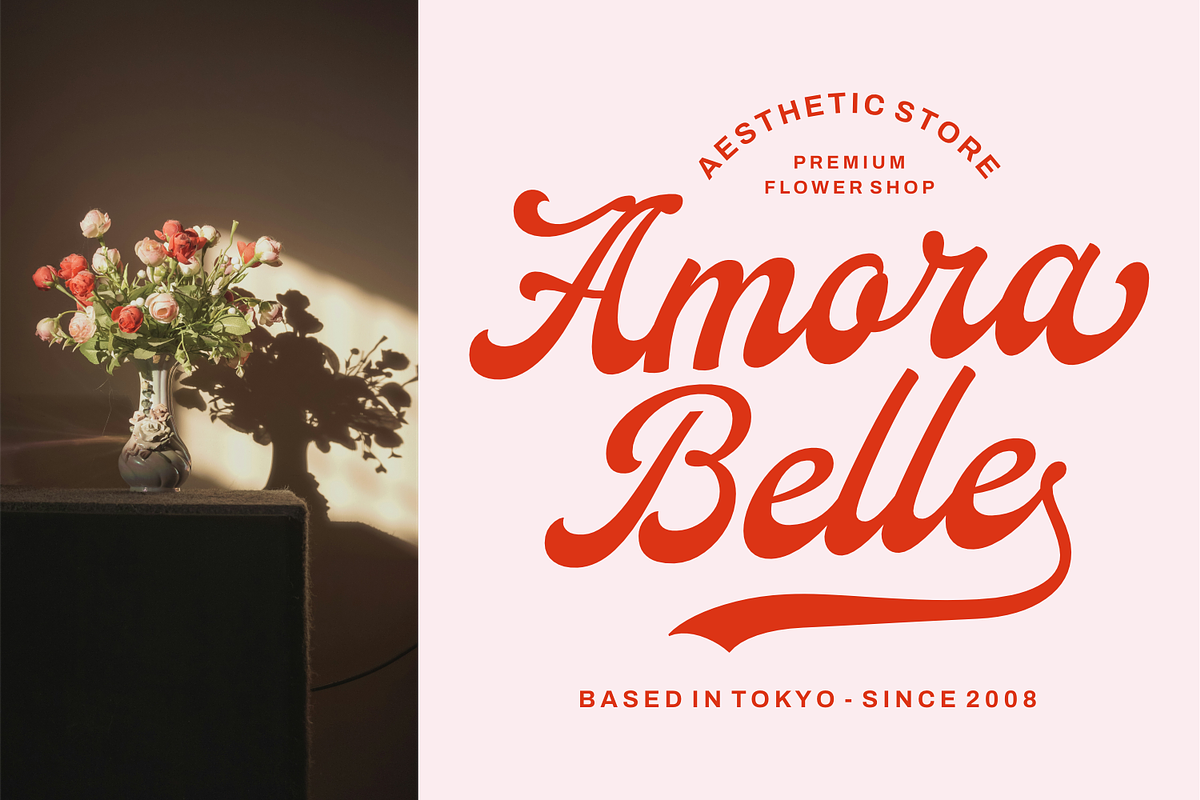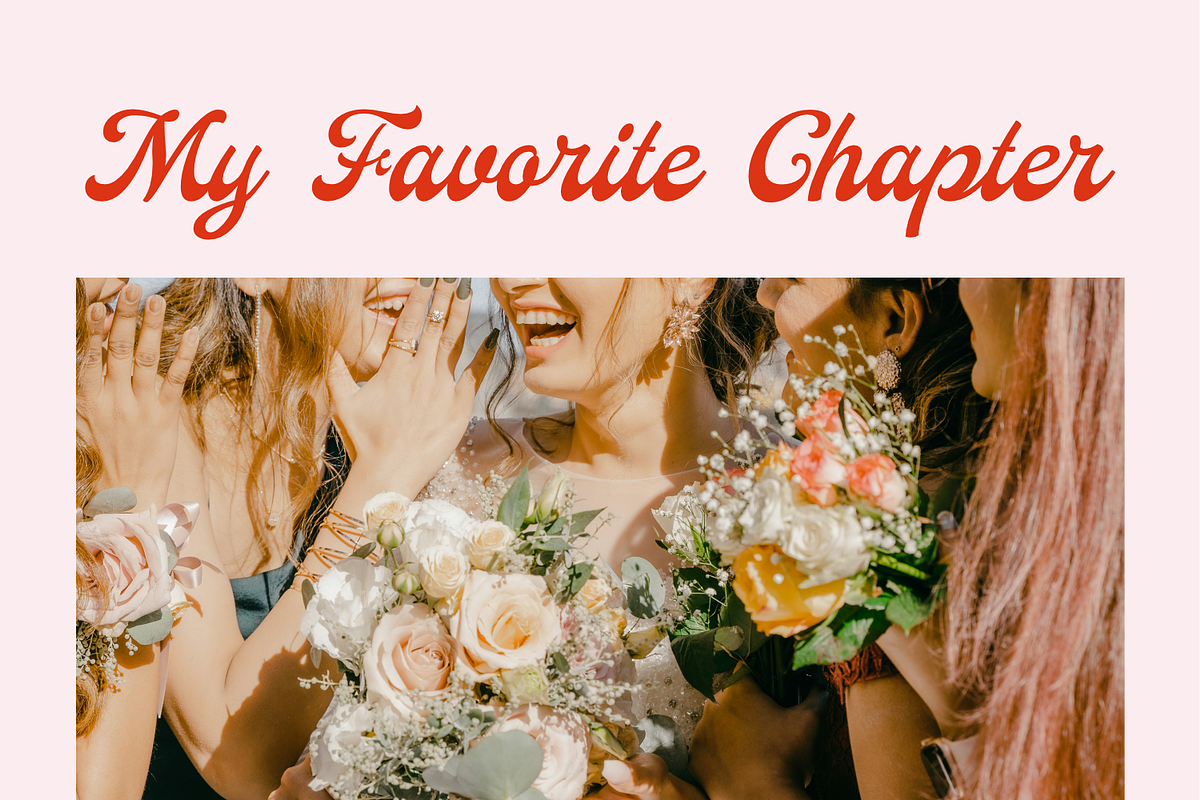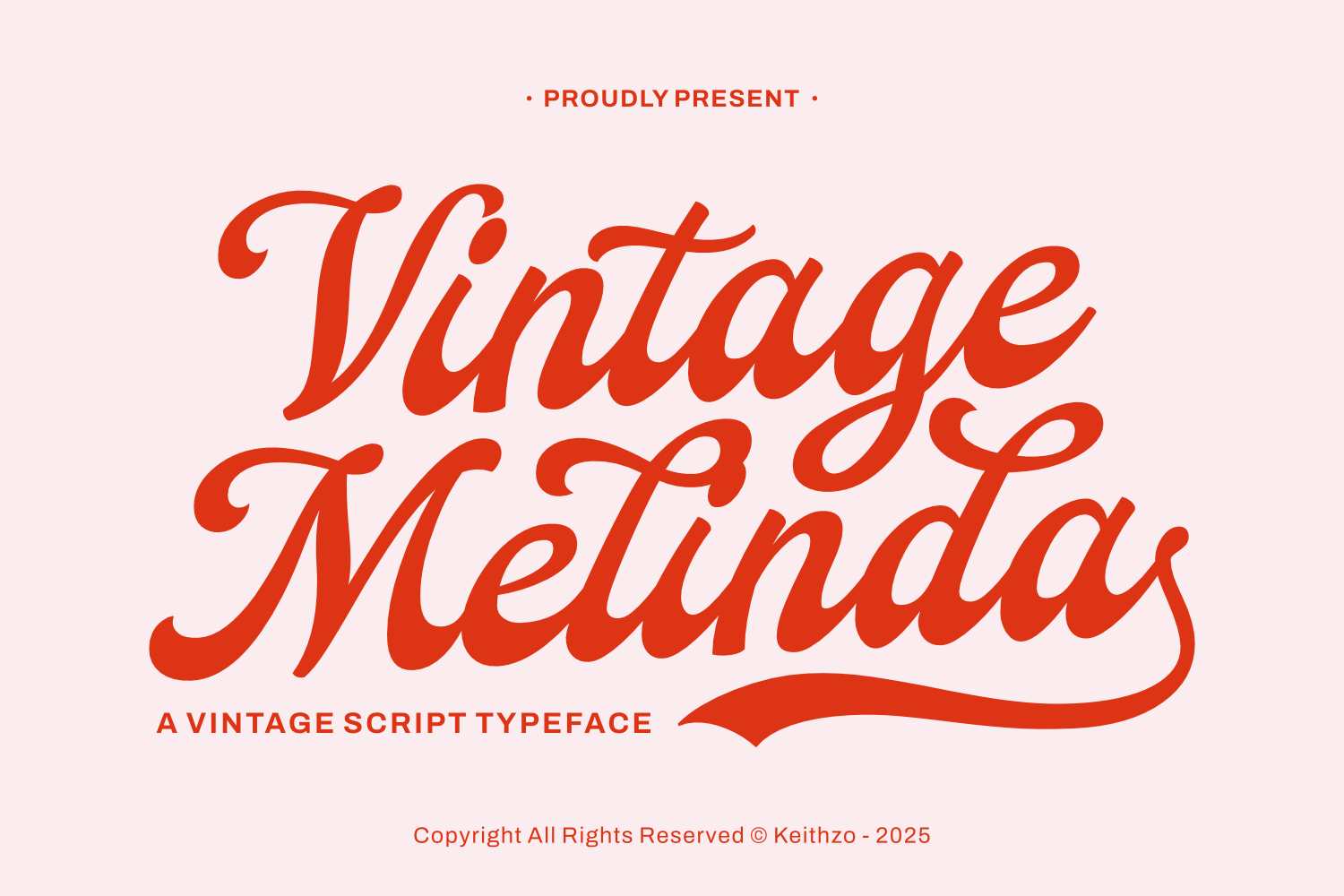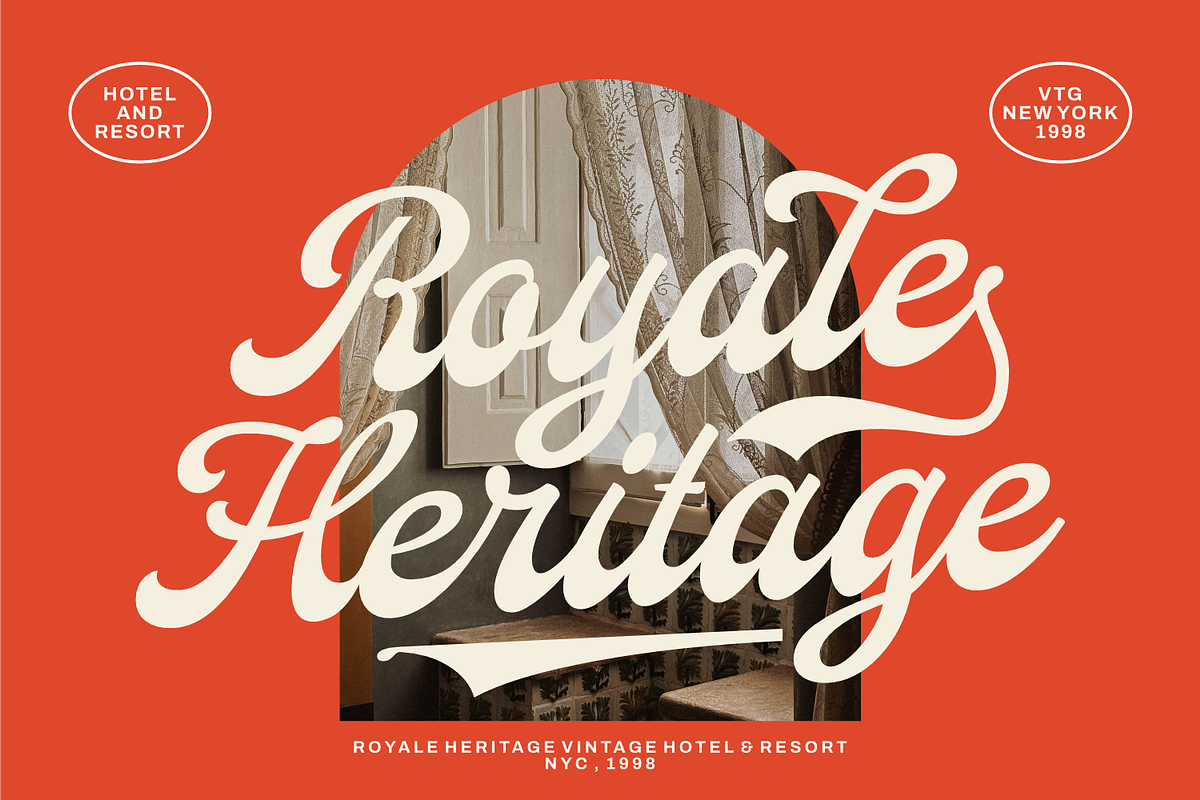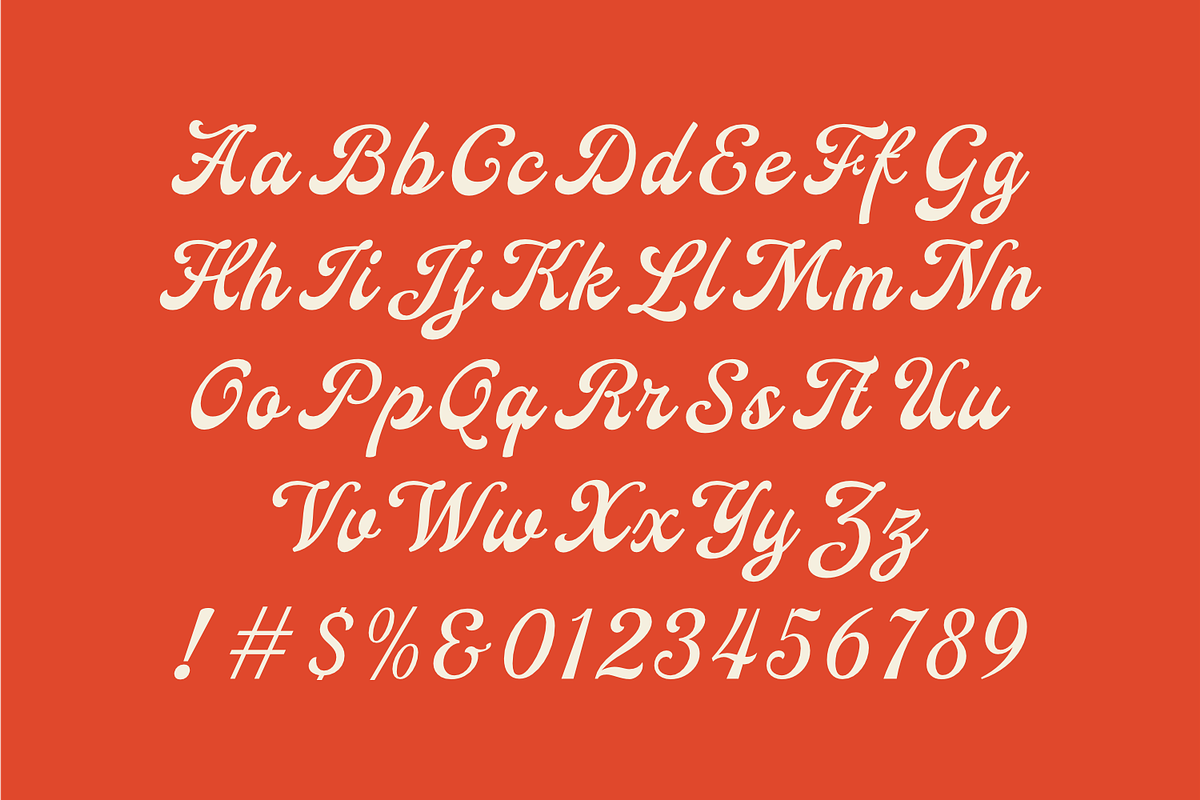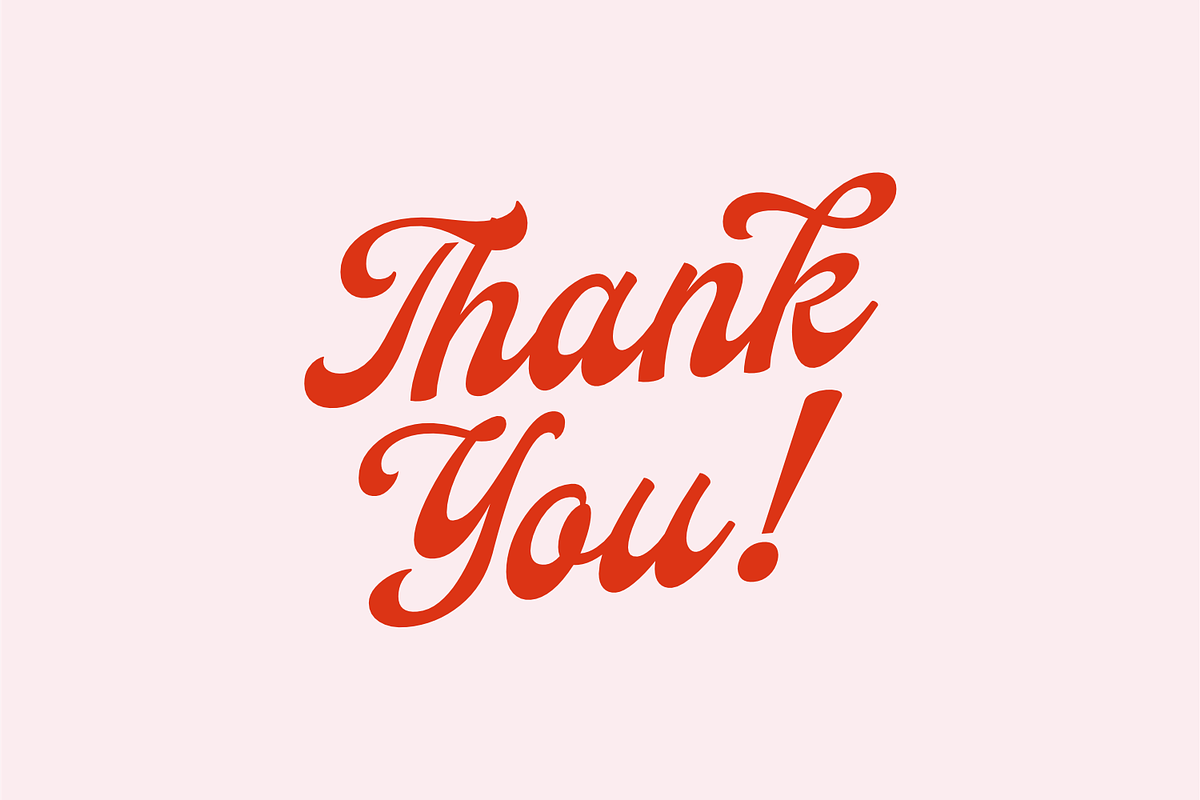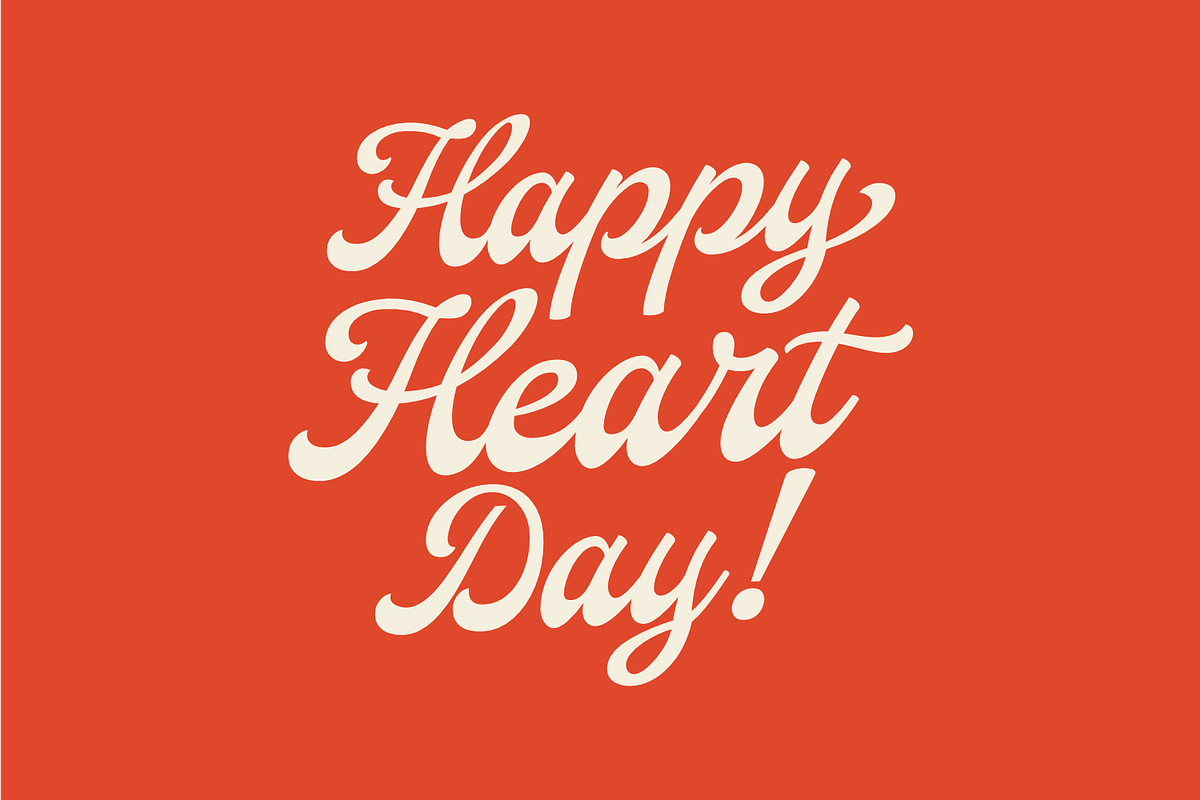
Vintage Melinda - Romantic Font
Introducing Vintage Melinda, an exquisitely timeless script capturing the warmth of Retro Romance.
Vintage Melinda is an enticing fusion of classic elegance and a distinct vintage vibe. With its fluid lines and tasteful hand-lettered impression, this font serves as a masterpiece for creators wanting to infuse a dose of “legacy opulence” in their innovative creations.
Perfect for affectionate greeting cards, exquisite wedding invites, or affection-themed stationery, the tender curves of this script offer a compelling, personal flair to every single word.
Born from the inspiration of traditional calligraphy and mid-century aesthetics, Vintage Melinda is a perfect fit for projects necessitating a reminiscent, timeless, or “rustic sophisticated” aura.
Its refined swashes and seamless transitions set it apart as an exclusive option for premier branding, vogue periodicals, and high-end packaging. Created to carry the charm of the past into the future, Vintage Melinda script is where classic sophistication meets modern creativity.